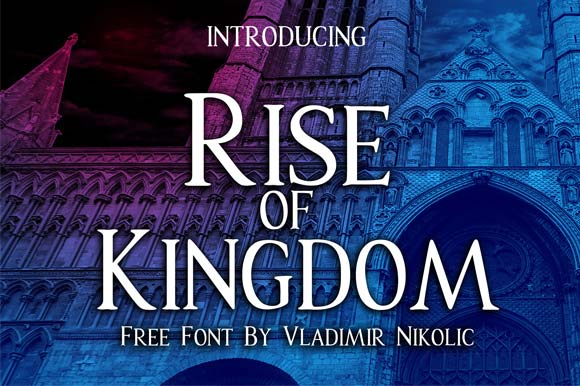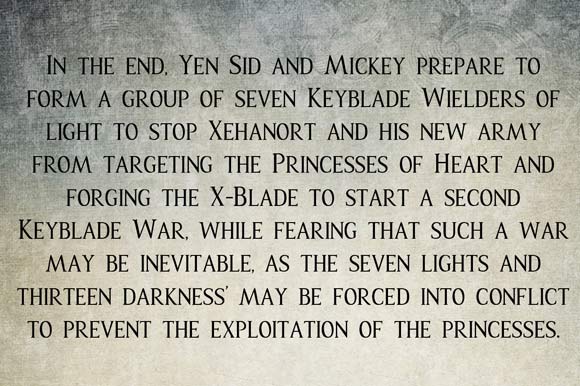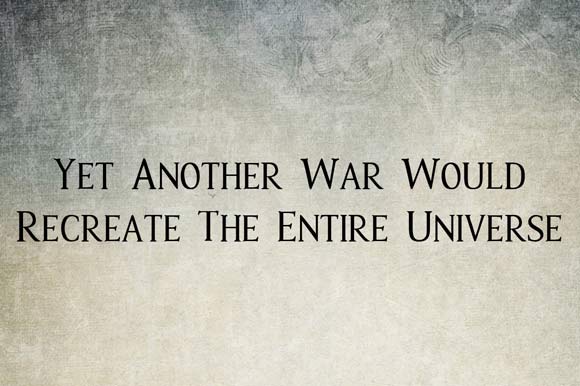
Rise of Kingdom
About Rise of Kingdom Font
Rise of Kingdom is a stunning font created by Vladimir Nikolic.
The Rise of Kingdom font is a legible serif font. This font is available for free (commercial use allowed).